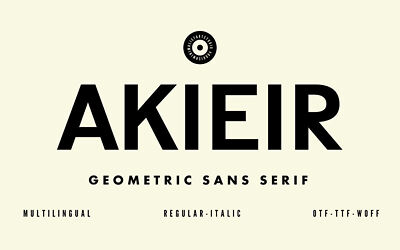
Introduce a new dimension to your design project with our robust slab serif font collection. Named for their bold, impactful design elements, this dynamic typeface trio is presented in three styles: Regular, Italic, and Retalic, also known as ‘inverted italic’.
The commanding visibility of these sturdy, thick-stroked fonts is undeniably suited for crafting striking headlines, influential titles, and unforgettable logos. Their authoritative presence resonates with sectors like finance, technology, fashion, industry and in vintage themes where asserting a confident and strikingly unique identity is key.